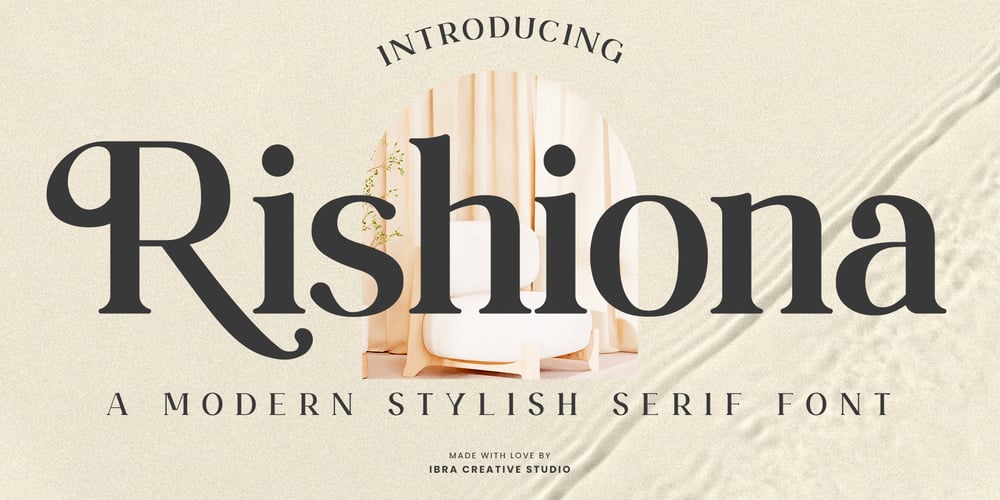
Rishiona Font Family was designed by Roisatul Azizah and published by IbraCreative. Rishiona contains 1 styles and family package options. Rishiona – A Modern Stylish Serif FontRishiona, a contemporary and stylish serif font, captivates with its seamless fusion of modern aesthetics and timeless elegance. Each meticulously crafted letterform exudes sophistication, boasting clean lines and balanced proportions that effortlessly navigate the intersection of tradition and innovation. The serifs, with their subtle yet distinctive details, add a touch of refinement, elevating Rishiona to a font that is not just functional but an artful expression of sophistication. Whether employed in digital interfaces or print media, Rishiona commands attention, offering a versatile typographic tool for those seeking a perfect blend of sleek, modern design and classic serif charm. With its subtle curves and sleek lines, Rishiona stands as a testament to the power of typography in shaping contemporary visual identities with a nod to enduring style.Rishiona is perfect for branding projects, logo, wedding designs, social media posts, advertisements, product packaging, product designs, label, photography, watermark, invitation, stationery, game, fashion and any projects.Fonts include multilingual support for; Afrikaans, Albanian, Czech, Danish, Dutch, English, Estonian, Finnish, French, German, Hungarian, Italian, Latvian, Lithuanian, Norwegian, Polish, Portuguese, Slovak, Slovenian, Spanish, Swedish.